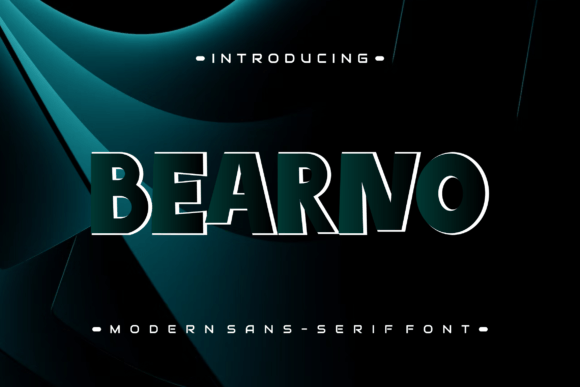
The Right Typography for a Bold Statement
Have you ever found yourself staring at a blank design canvas, feeling stuck and unsure of how to bring your vision to life? The blank page can be intimidating, but the right font can make all the difference. That’s where Bearno Font comes in – a cool and modern display font designed to make a bold statement.
Bearno Font is perfect for designers who want to add a touch of sophistication and modernity to their designs. With its clean lines and sleek design, it’s the ideal choice for anyone looking to make a lasting impression. Whether you’re creating a logo, a poster, or a social media graphic, Bearno Font is sure to elevate your design game.
Bearno Font Key Features
- Font Family: Bearno Font comes in 4 different font styles: Regular, Italic, Bold, and Bold Italic.
- Font Size: Designed to be highly legible in a wide range of font sizes, from 8pt to 72pt.
- Unique Characteristic: Bearno Font features a unique blend of modern and classic design elements, making it suitable for a variety of applications, from corporate branding to creative projects.
Bearno Font Review
Overall, I’m quite impressed with the Bearno Font. It has a unique charm that can add a fun and playful touch to your designs. ✨ One of the things that works well is its wide range of languages supported, making it a great option for multilingual designs.
- ✨ Customizable: Bearno Font comes with several options for customization, allowing you to adjust the font’s weight, style, and more.
- ✨ Versatile: This font can be used for a variety of projects, from logos and branding to web design and print materials.
- ✨ Unique: Bearno Font has a distinctive look that sets it apart from more traditional fonts.
However, I do have a few concerns. ⚠️ One of the limitations is that the font may not be the best choice for very formal or professional projects, as it can come across as a bit too playful.
- ⚠️ Limited expressiveness: While Bearno Font is great for conveying a lighthearted or humorous tone, it may not be the best choice for conveying complex or nuanced ideas.
- ⚠️ Not ideal for small text: The font’s design may make it difficult to read in smaller sizes, so be sure to test it in different contexts.
Overall, I think Bearno Font is a great addition to any designer’s toolkit, but it’s essential to use it judiciously and consider the project’s tone and requirements before making a decision.
Bearno Font Practical Application Guide
Tips for Getting the Most Out of Bearno Font
To get the most out of Bearno Font, consider the following tips:
- Use Bearno Font in combination with other fonts for a unique and eye-catching design.
- Use Bearno Font for headings and titles to add a touch of sophistication.
Bearno Font is commonly used for:
- Food and drink branding.
- Interior design and home decor projects.
Alternatives to Bearno Font
Playfair Display is a high-end serif font perfect for creating a luxurious and elegant look. It’s ideal for headings, titles, and other design elements where you want to add a touch of sophistication. Compared to Bearno Font, Playfair Display has a more refined and classic feel, making it suitable for high-end branding and packaging designs.
Anton
Anton is a modern sans-serif font with a strong, geometric feel. It’s great for creating a bold and edgy look, making it perfect for headlines, titles, and other design elements where you want to add a sense of drama. Compared to Bearno Font, Anton is more modern and minimalist, making it suitable for tech, fashion, and entertainment branding.
Great Vibes is a beautiful script font with a relaxed and casual feel. It’s ideal for creating a friendly and approachable look, making it perfect for headings, titles, and other design elements where you want to add a sense of warmth. Compared to Bearno Font, Great Vibes is more playful and expressive, making it suitable for food, hospitality, and lifestyle branding.